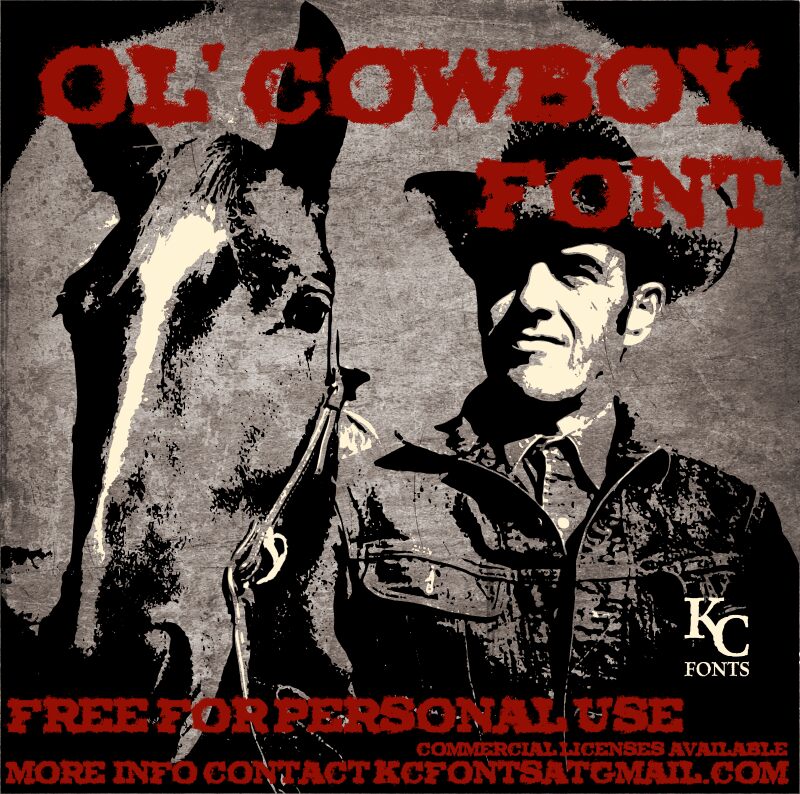
Ol Cowboy ExtraBold by Kevin Christopher of KC Fonts is a free eroded Western display font with the weight and swagger of old frontier signage. Its broad slab serifs and swollen curves make the capitals feel dense and imposing. Ragged edges give every letter a rough, ink-stamped finish.
It is strongest on rodeo posters, country music merchandise, and barbecue packaging, where the battered surface supports a rustic, hard-used theme. For saloon branding or Western event graphics, the lettering can become the sign itself rather than a neutral caption.